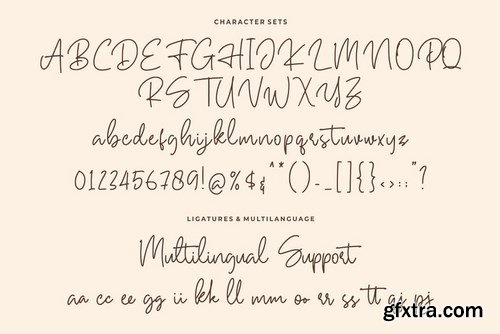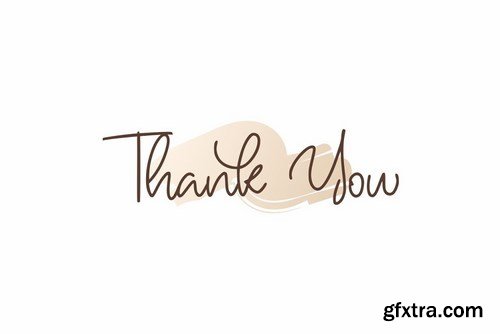
Introducing Hallywood - Handwritten Script Font
This Font can be used for any variety of purposes, such as: Signature, Photography, Wedding Ceremony, Invitation, Packaging, Logo Type, Branding Design, Fashion and also can be used for Business purpose.